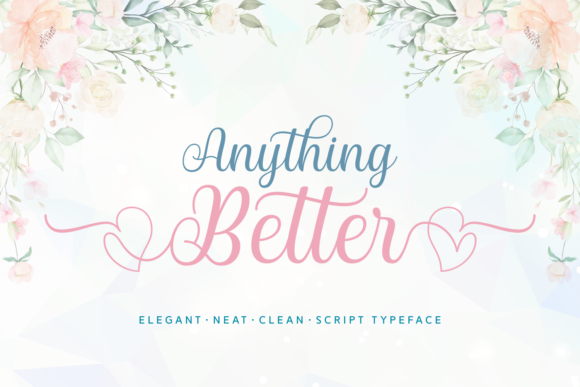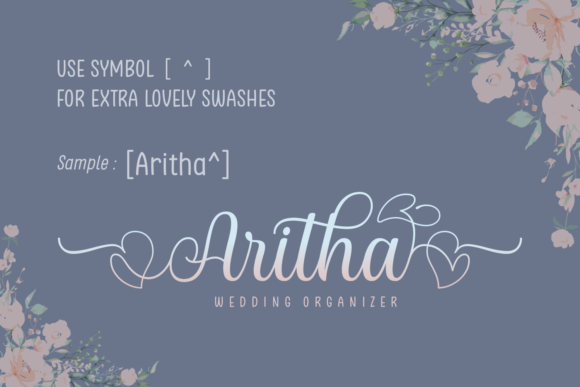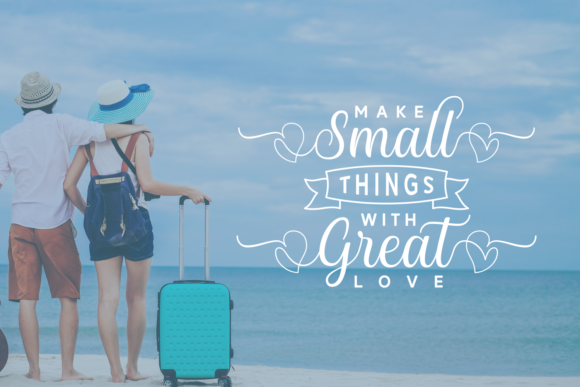
Anything Better Font
About Anything Better Font
Anything Better is a fun and beautiful handwritten font with a lovely feel. It will add a sophisticated charm to any design project.